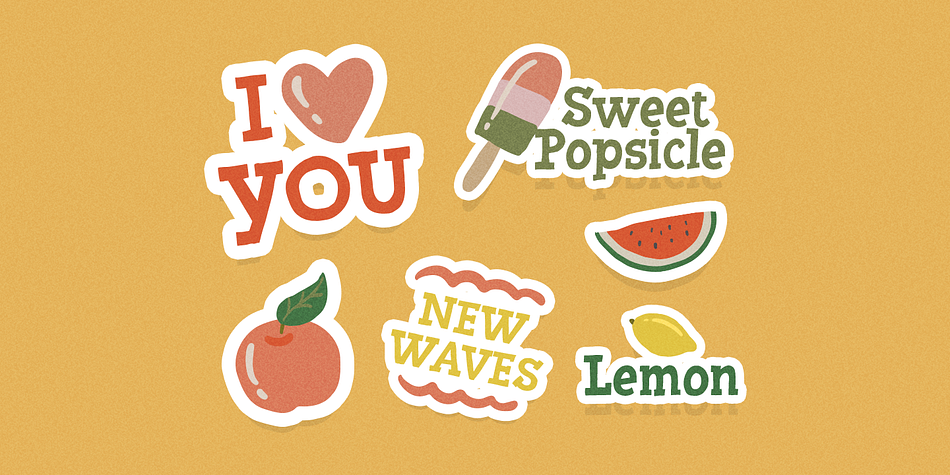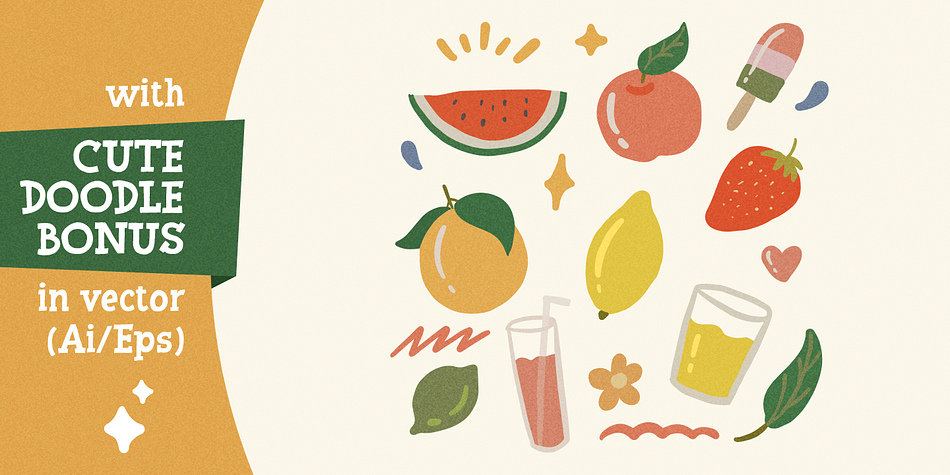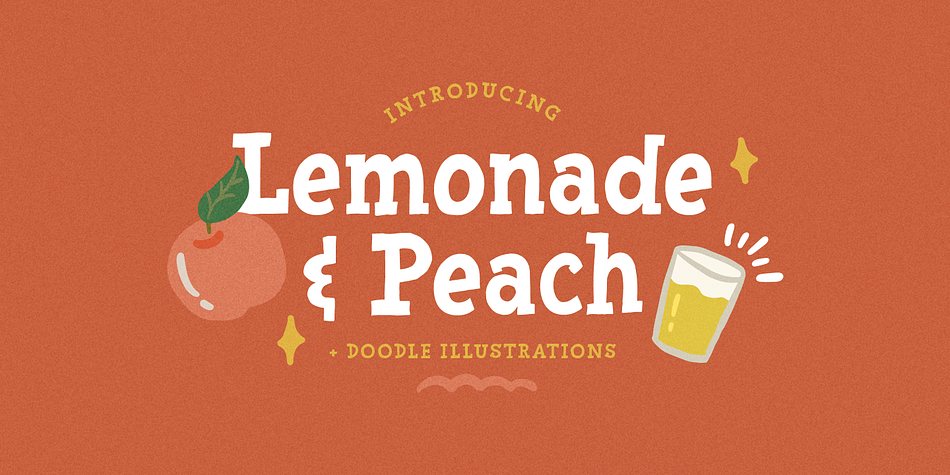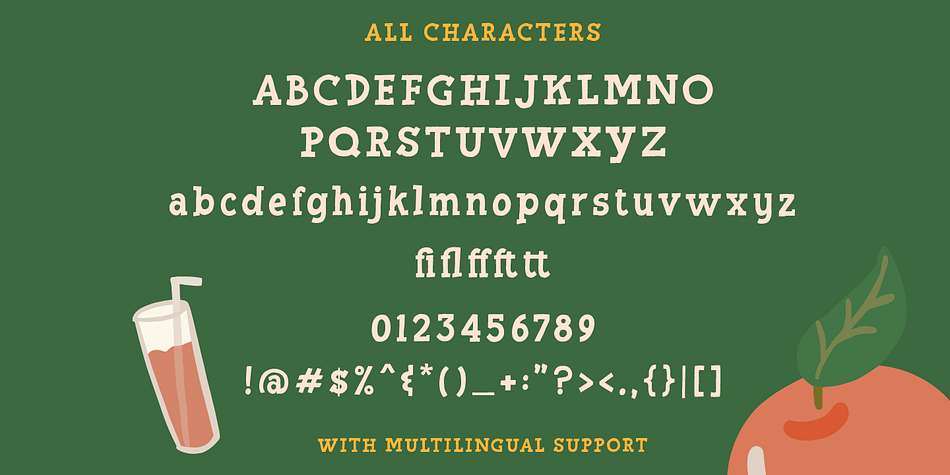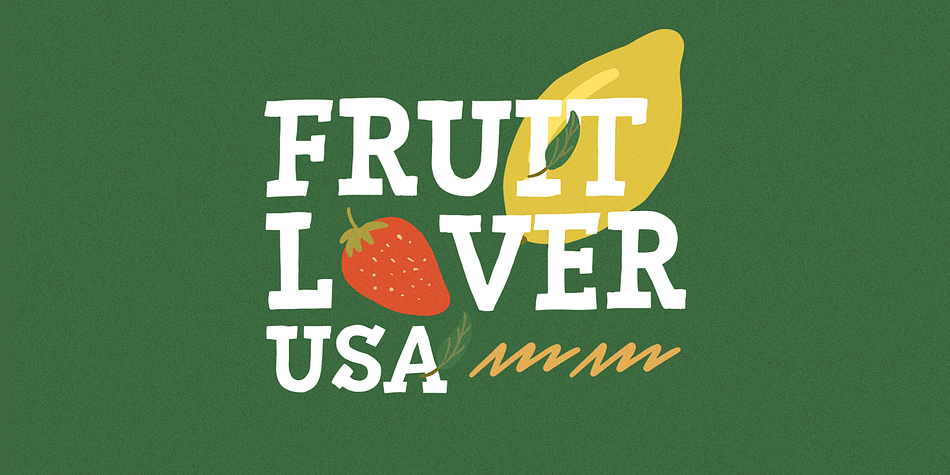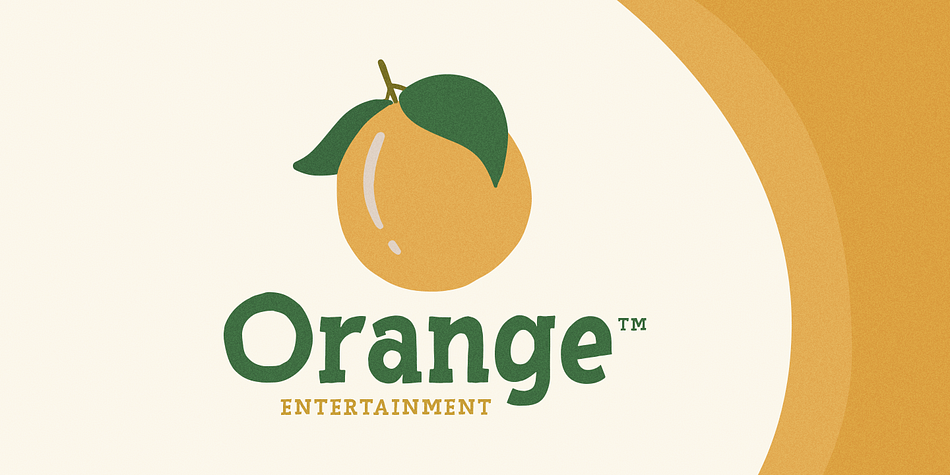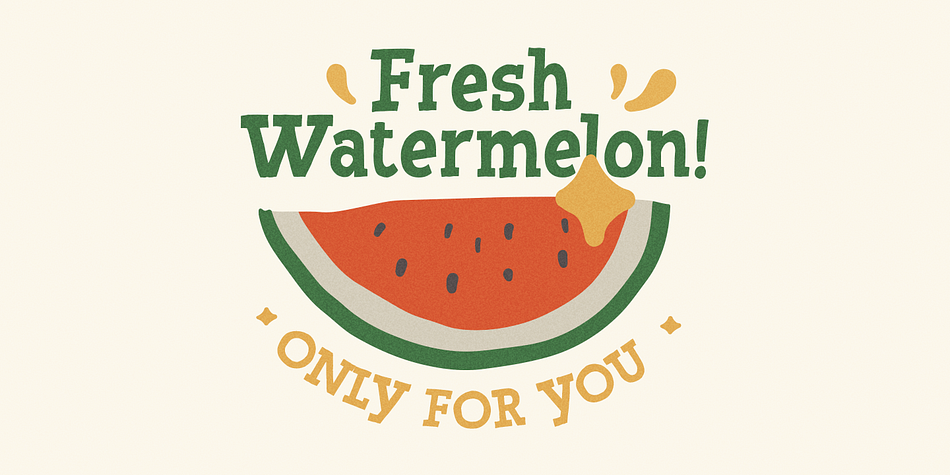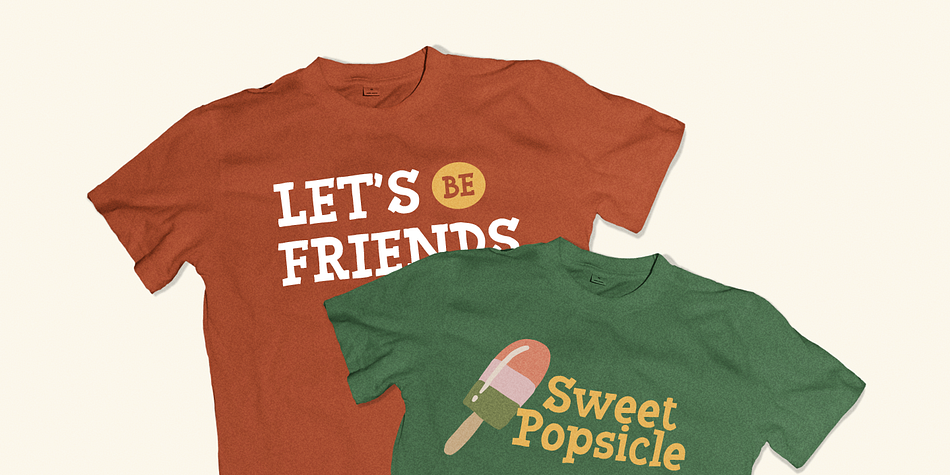
Designed by Hendry Juanda, Lemonade and Peach is a display slab and hand display font published by Letterhend Studio.
Introducing, Lemonade and Peach, a fresh display typeface. As you can see, this typeface has playful and fun look which is perfectly made to be applied especially in storybook cover, comics, cartoon characters, kids theme design, etc. on top of that, this font includes cute doodle bonus! so what are you waiting for, go grab one!